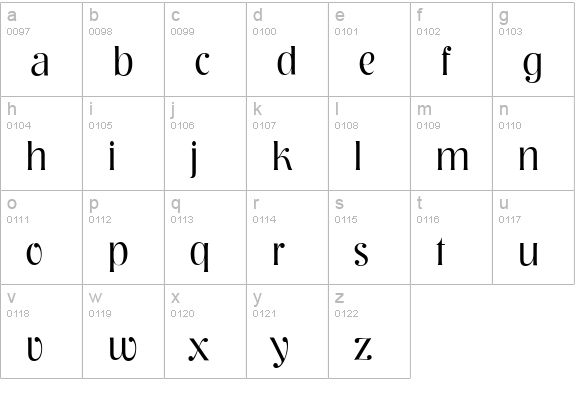
NashvilleSerial-Light-Regular is a refined, elegant variant in the NashvilleSerial typeface family \xE2\x80\x94 well suited to elegant body text, refined sub-headings, and luxury branding.
NashvilleSerial-Light-Regular is a charming and versatile font that exudes a sense of elegance and sophistication. Its clean lines and subtle curves make it perfect for a wide range of design projects, from branding to editorial layouts. This font strikes the perfect balance between modernity and classic style, making it a timeless choice for any design endeavor. What sets NashvilleSerial-Light-Regular apart is its versatility - it can be used for both headings and body text, adding a touch of refinement to any project. Whether you're designing a logo, creating a poster, or crafting a website, this font will elevate your work to new heights. Best of all, NashvilleSerial-Light-Regular is completely free to download at FontsMarket.com. So you can enhance your designs with this elegant font without breaking the bank. Don't miss out on this opportunity to add a touch of sophistication to your projects - download NashvilleSerial-Light-Regular today!